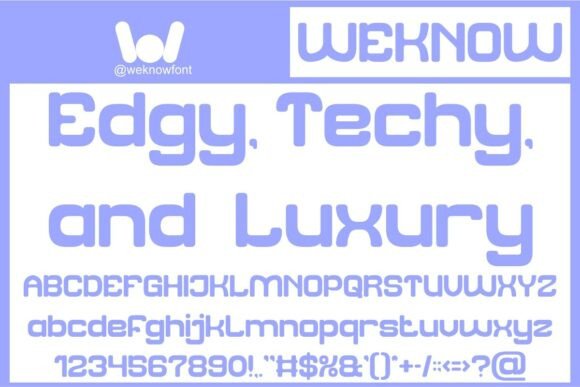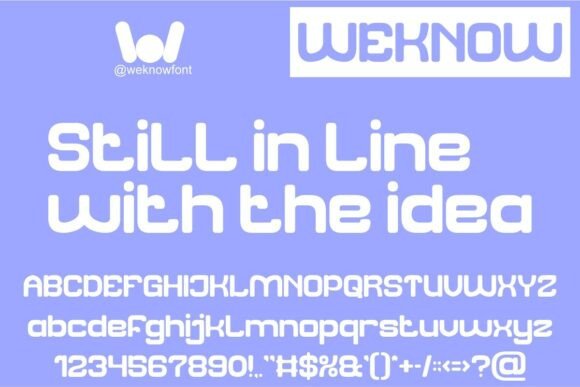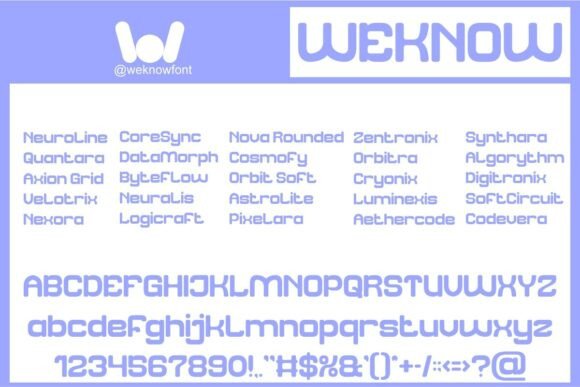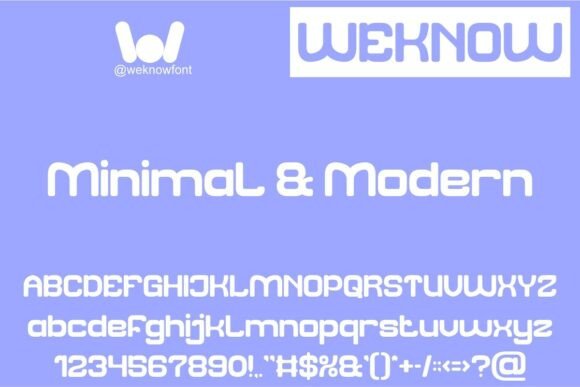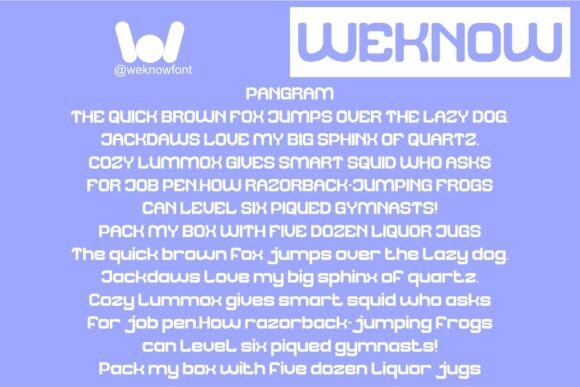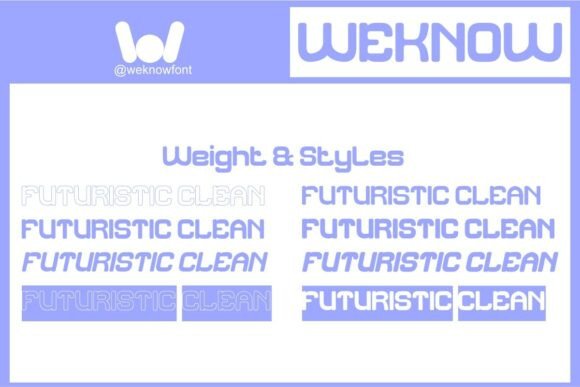
Embracing the Future: A Deep Dive into Futuristic Clean Font
What Makes Futuristic Clean Stand Out?
Futuristic Clean is a masterpiece of modern typography, characterized by its soft, rounded terminals and wide, architectural proportions. This font embodies the “soft-minimalism” aesthetic, making it perfect for brands that want to convey innovation with a friendly edge.
- ✨ Soft, rounded terminals that add a touch of warmth to any design
- ✅ Wide, architectural proportions for better readability
- 💻 Perfect for UI/UX design, tech startups, and modern apparel labels
- 🌟 Highly versatile and adaptable to various design contexts
- 🤔 Limited use of uppercase letters, which might not be ideal for certain designs
- ⚠️ Some users might find the font too minimalist or lacking in personality
- Experiment with OpenType features, such as ligatures and stylistic alternates, to add visual interest
- Explore the font’s glyphs and OpenType features to add depth and complexity to your design
The Designer Inspiration Behind Futuristic Clean
While the true story behind Futuristic Clean remains a mystery, it’s easy to imagine a designer who was passionate about merging technology and humanism. Perhaps they sought to create a font that would make tech brands more approachable and relatable. Whatever the inspiration, Futuristic Clean has undoubtedly become a go-to font for designers seeking a modern, innovative look.
Q: What is the best use case for Futuristic Clean?
A: Futuristic Clean excels in UI/UX design, tech startups, futuristic branding, and modern apparel labels.
A: Absolutely! Futuristic Clean is a versatile font that works well in both digital and print designs.
A: While Futuristic Clean is primarily designed for display use, it can be used for body text in certain contexts. However, its readability may decrease at smaller font sizes.